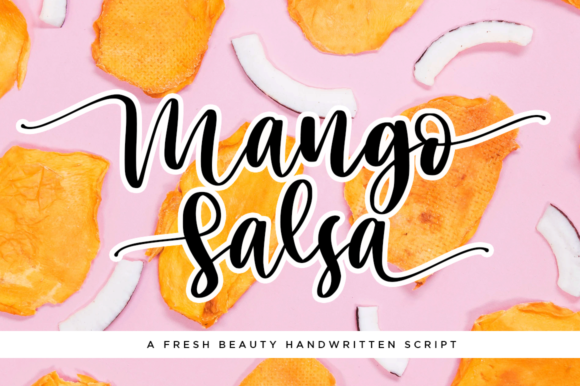
Journey into the realm of exquisite penmanship with Mango Salsa Font, a script font family embodying the essence of sophistication and grace. Crafted by the visionary minds at Haksen, Mango Salsa Font redefines elegance with its handwritten charm, blending classic calligraphy with a touch of modern flair.
Immerse yourself in a world of creativity as you explore the boundless possibilities of Mango Salsa Font. Its versatility knows no bounds, making it the ideal choice for a multitude of projects. From letterheads and titles demanding attention, to stationery exuding timeless charm, Mango Salsa Font effortlessly transforms your words into works of art.
Experience the allure of Mango Salsa Font, where each letter dances across the page with an air of effortless beauty. Its flowing curves and intricate details evoke a sense of authenticity, ensuring your designs stand out from the mundane. Indulge in the joy of creating personalized invitations, greeting cards, and social media graphics that leave a lasting impression.
Mango Salsa Font is not just a font; it's an expression of individuality, a reflection of your unique style. Whether you're a seasoned designer or just starting your creative journey, this font will elevate your projects to new heights. Its handwritten charm adds a personal touch that resonates with your audience, making your designs truly unforgettable.
With Mango Salsa Font as your creative companion, you'll discover a new level of expression, where words become art, and designs captivate the senses. Embrace the beauty of handcrafted elegance and let your creativity flow. Download Mango Salsa Font today and embark on a journey of design excellence.